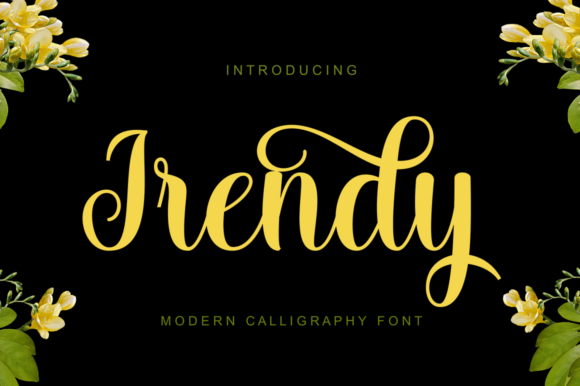
There’s nothing quite like the feeling of finding the perfect font for your next design project. It’s like stumbling upon a hidden treasure that brings your entire concept to life. For designers, the search for the ideal font is an ongoing quest, and it’s a challenge that Irendy Font is ready to help you conquer.
Irendy Font is a sophisticated script font that’s designed to elevate your designs with its smooth lines, gorgeous glyphs, and stunning alternates. With its PUA encoding, accessing all the amazing glyphs and swashes is a breeze, making it a valuable tool for any designer looking to add a touch of elegance to their work. Whether you’re working on a wedding invitation, a luxury brand campaign, or a romantic novel, Irendy Font is sure to impress.
Irendy Font Key Features
- Character Set: The font includes a comprehensive character set, covering Latin, Cyrillic, and Greek alphabets, as well as a wide range of punctuation and special characters.
- Resolution: The font is designed to be scalable, making it suitable for use in high-resolution designs, such as those intended for print or digital display.
- Unique Characteristics: Irendy Font features a unique, hand-drawn design style, with subtle irregularities and variations that give it a distinctive, human touch.
Irendy Font Review
Overall, I’m quite impressed with the Irendy Font. ✨ Its unique blend of modern and vintage elements makes it a great choice for designers looking to add some character to their projects. The font is highly versatile and works well in a variety of contexts, from headings to body text.
One of the standout features of Irendy is its exceptional legibility. ✨ The font is easy to read, even at smaller sizes, making it a great choice for digital applications. Additionally, the font’s x-height is well-proportioned, which helps to create a sense of balance and harmony.
- Unique blend of modern and vintage elements
- Highly versatile and works well in various contexts
- Exceptional legibility, even at smaller sizes
- Well-proportioned x-height creates a sense of balance
- ⚠️ Some users may find the font’s eccentricities distracting
- ⚠️ Limited language support (only Latin-based languages are fully supported)
Overall, I’d say that Irendy Font is a solid choice for designers looking for a unique and versatile font. While it may not be perfect, its strengths outweigh its limitations, making it a great addition to any design project.
Irendy Font Practical Application Guide
Getting the Most Out of Irendy Font
To get the most out of Irendy Font, use it for creative projects that require a unique and stylish touch, such as:
– Branding materials
– Infographics
– Blog posts
Irendy Font is commonly used for projects that require a modern and trendy feel, such as:
– Fashion designs
– Beauty product labels
– Food packaging
– Advertising campaigns
Alternatives to Irendy Font
The Great Vibes Font is a beautiful, elegant script font that is perfect for creative projects, wedding invitations, and other artistic designs. It is ideal for use in headings and titles where a touch of sophistication is required.
Compared to Irendy Font, Great Vibes Font has a more refined and classic look, while Irendy Font has a more modern and edgy feel.
The Carolyna Pro Font is a modern, elegant script font that is perfect for luxury brands, high-end designs, and sophisticated projects. It is ideal for use in headings, titles, and body text where a touch of elegance is required.
Compared to Irendy Font, Carolyna Pro Font has a more polished and refined look, while Irendy Font has a more trendy and playful feel.
The Pacifico Font is a beautiful, elegant script font that is perfect for creative projects, travel websites, and other artistic designs. It is ideal for use in headings, titles, and body text where a touch of sophistication is required.
Compared to Irendy Font, Pacifico Font has a more relaxed and beachy vibe, while Irendy Font has a more modern and edgy feel.